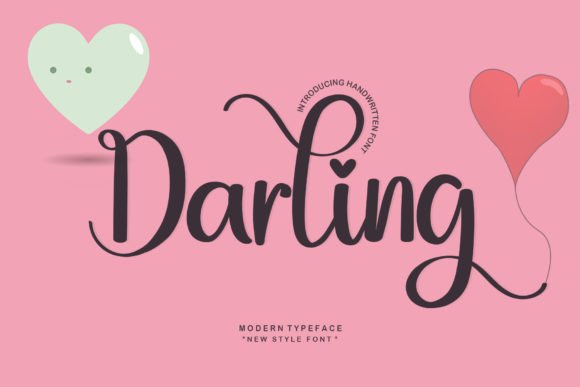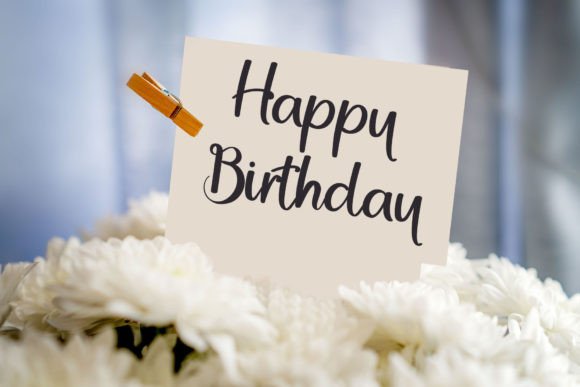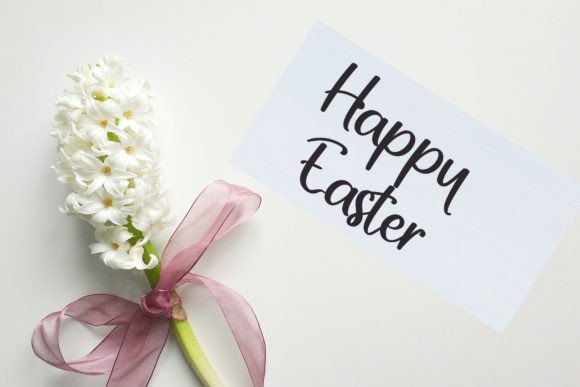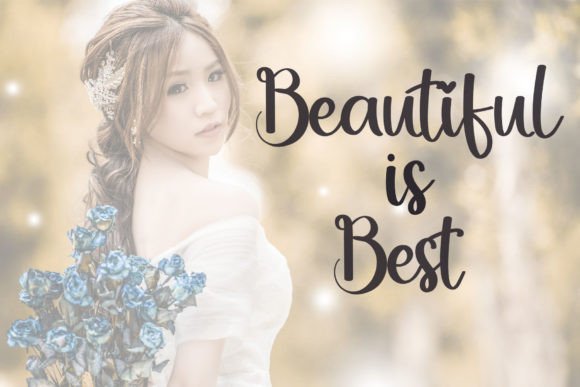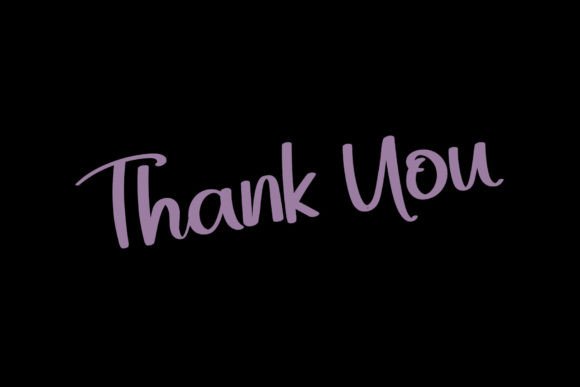
Darling Font
What Is Darling Font?
Darling Font is a stylish handwritten script that blends the beauty of timeless calligraphy with a modern, refined twist. Each letter is crafted with smooth, flowing lines and carefully balanced curves that create an elegant, sophisticated feel. Whether you’re designing something romantic, classy, or contemporary, Darling Font elevates your projects with ease.
Its fresh yet classic style makes it a versatile choice for designers who appreciate polished, high-quality typography.
Darling adapts beautifully to a variety of creative uses. For example, it’s an excellent choice for wedding invitations and event stationery. The graceful letterforms set a warm, memorable tone that feels personal and elegant.
Logos and branding projects stand out with Darling’s distinctive, upscale character. Whether you’re working with luxury boutiques, artisan products, or creative brands, this font helps build a professional, unforgettable identity.
Greeting cards, thank-you notes, and personal messages feel more sincere and stylish with Darling’s handwritten charm. Your words will look thoughtfully crafted and inviting.
Social media graphics, blog headers, and website banners instantly look more polished and eye-catching with Darling’s smooth, contemporary flow. Your digital content will feel elevated and cohesive.
Even product packaging, labels, and custom merchandise gain sophistication and warmth when you use this versatile script.
Why Should You Choose Darling Font?
One of Darling’s greatest strengths is its readability. Despite its stylish flourishes and calligraphic influence, every letter remains clear and legible in all sizes. Whether you’re designing small labels or large headlines, your text will always look refined.
It pairs perfectly with minimalist serif or sans-serif typefaces, giving you complete flexibility to create clean, modern layouts.
Designers love that Darling looks polished out of the box, saving time while delivering consistently beautiful results.
Darling Font brings elegance, authenticity, and personality to every project. Its smooth curves and balanced shapes create an emotional connection that makes your designs feel more engaging and professional.
Even simple layouts gain sophistication and charm when you use Darling. Whether you’re crafting a wedding suite, designing a logo, or creating social media graphics, this font elevates your visuals effortlessly.
Using a premium handwritten script shows your commitment to thoughtful design. Clients and customers will notice this attention to detail, helping you build trust and stand apart.
Darling Font is more than just a beautiful script—it’s a versatile design asset that helps you communicate ideas with clarity, style, and grace. From weddings and branding to packaging and digital content, this font adapts seamlessly to any project and leaves a lasting impression.